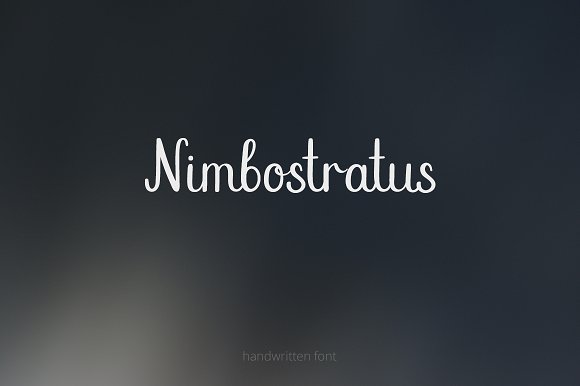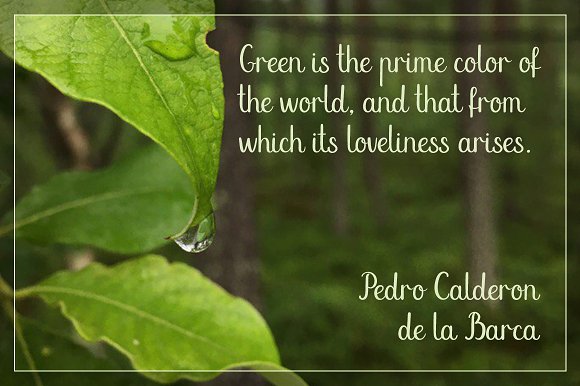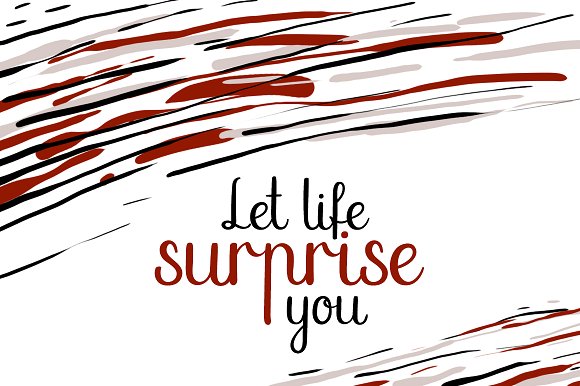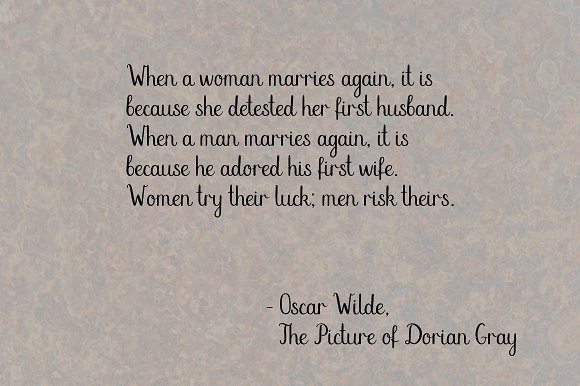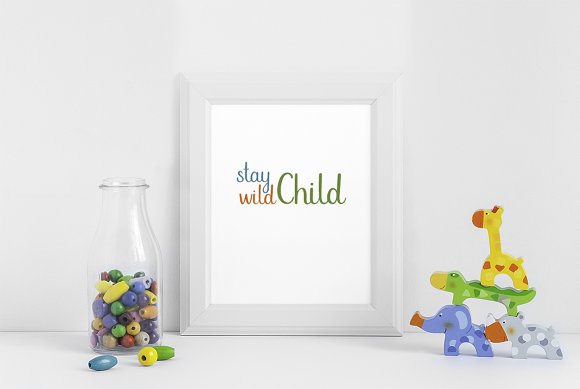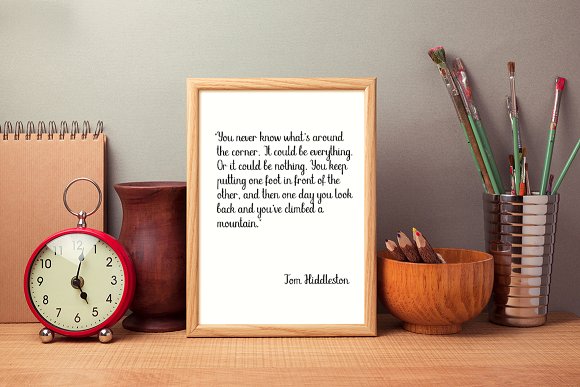
Nimbostratus. Handwritten Font
Introducing Nimbostratus Script Font. This handwritten typeface is perfect for wedding invitation, wedding decor, greeting card, logos, posters, overlays, quotes, and any other interesting projects.